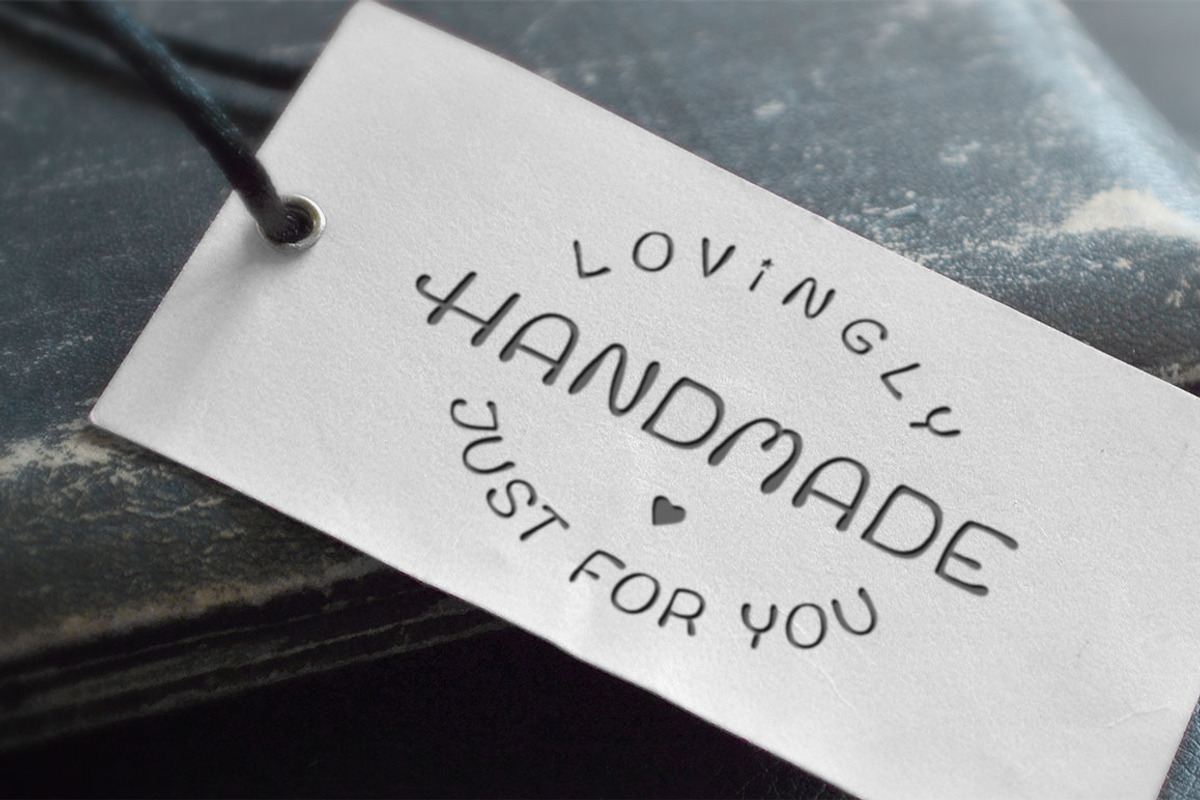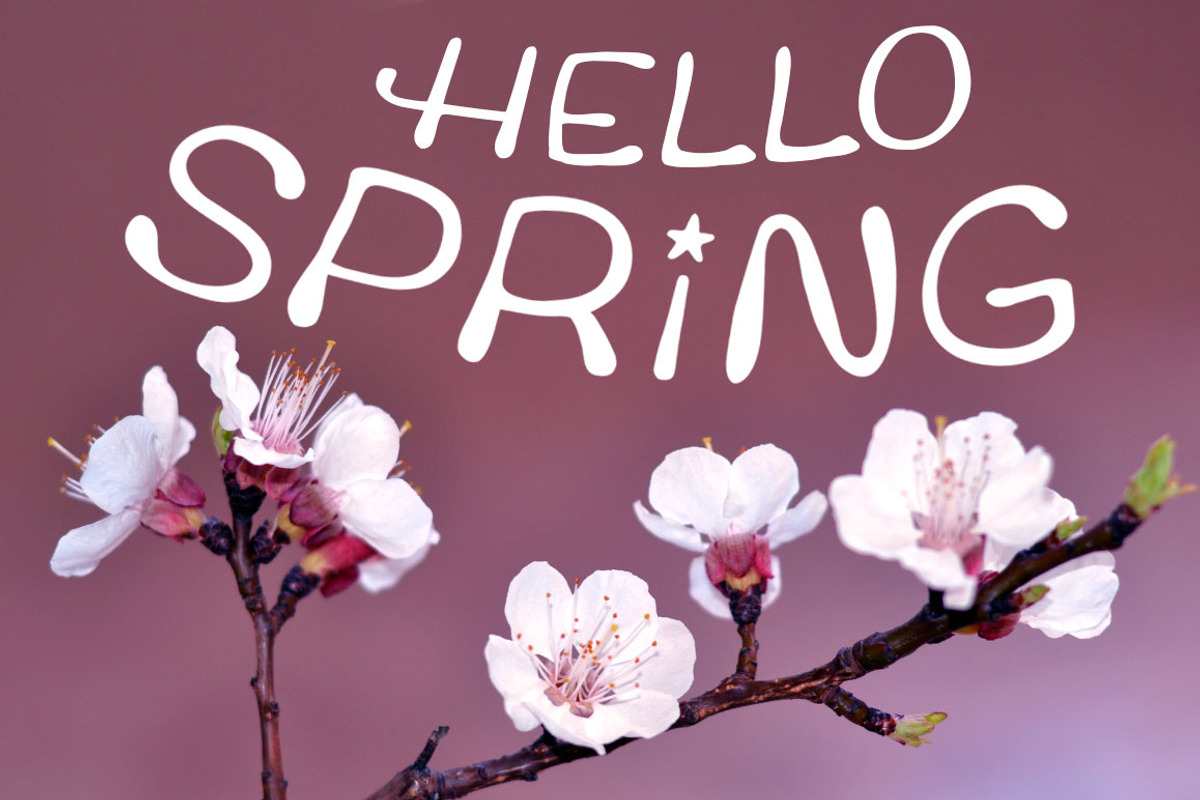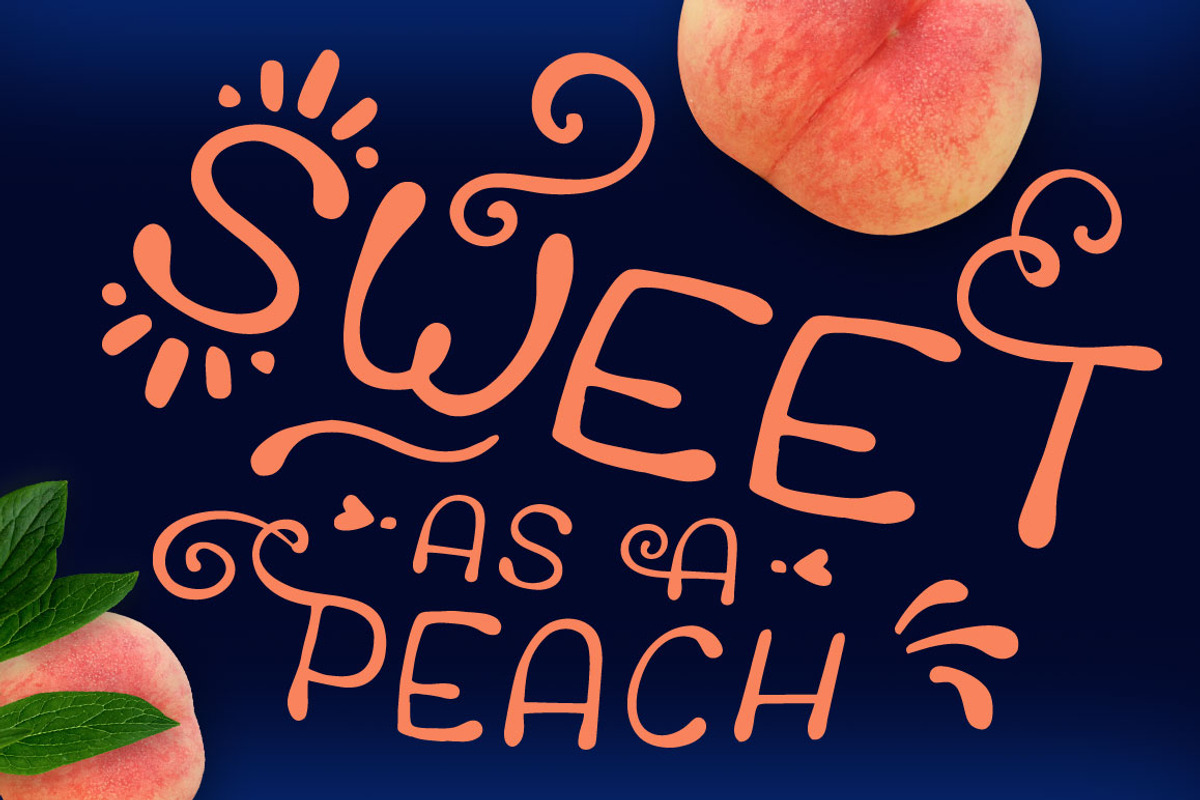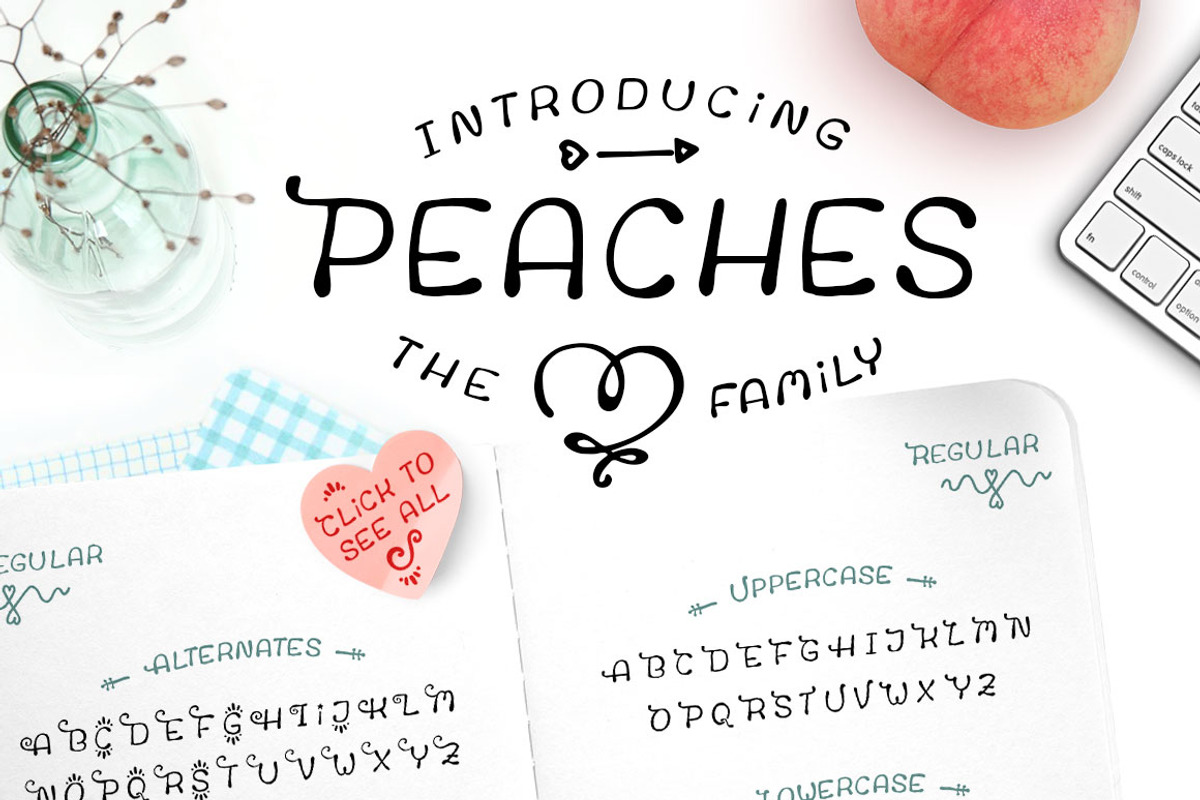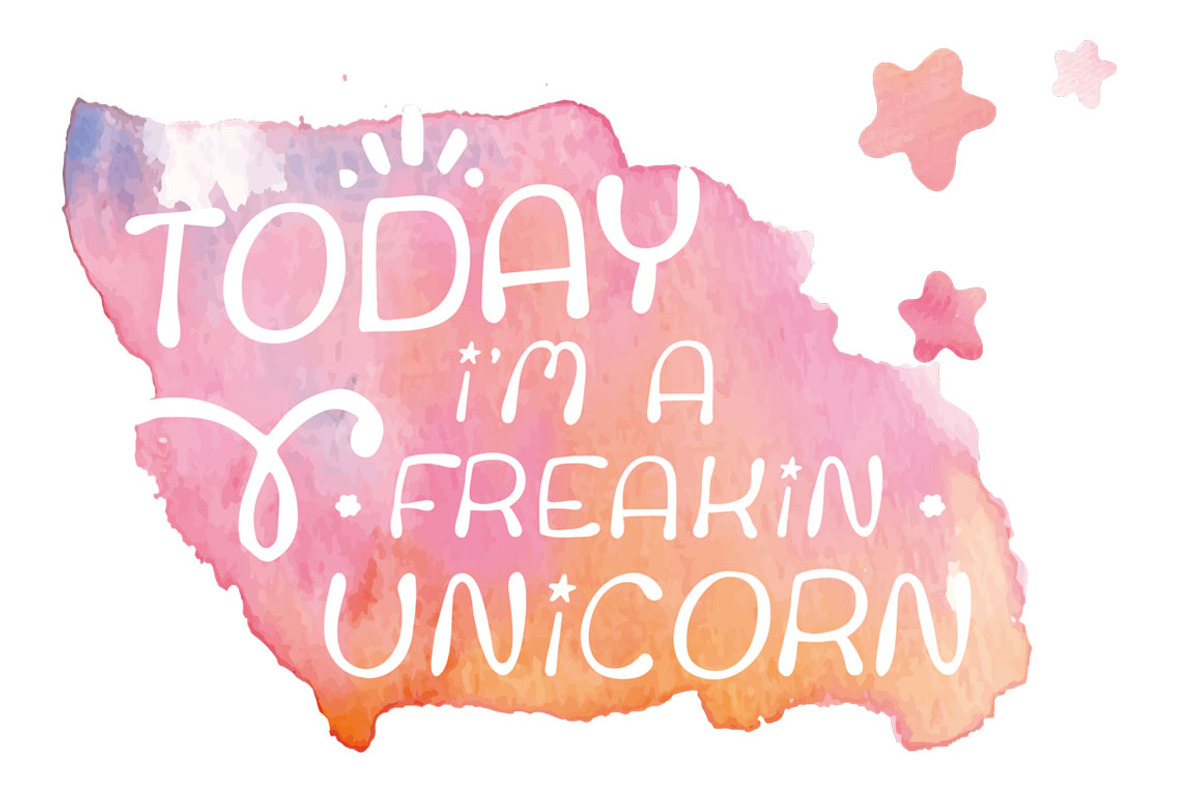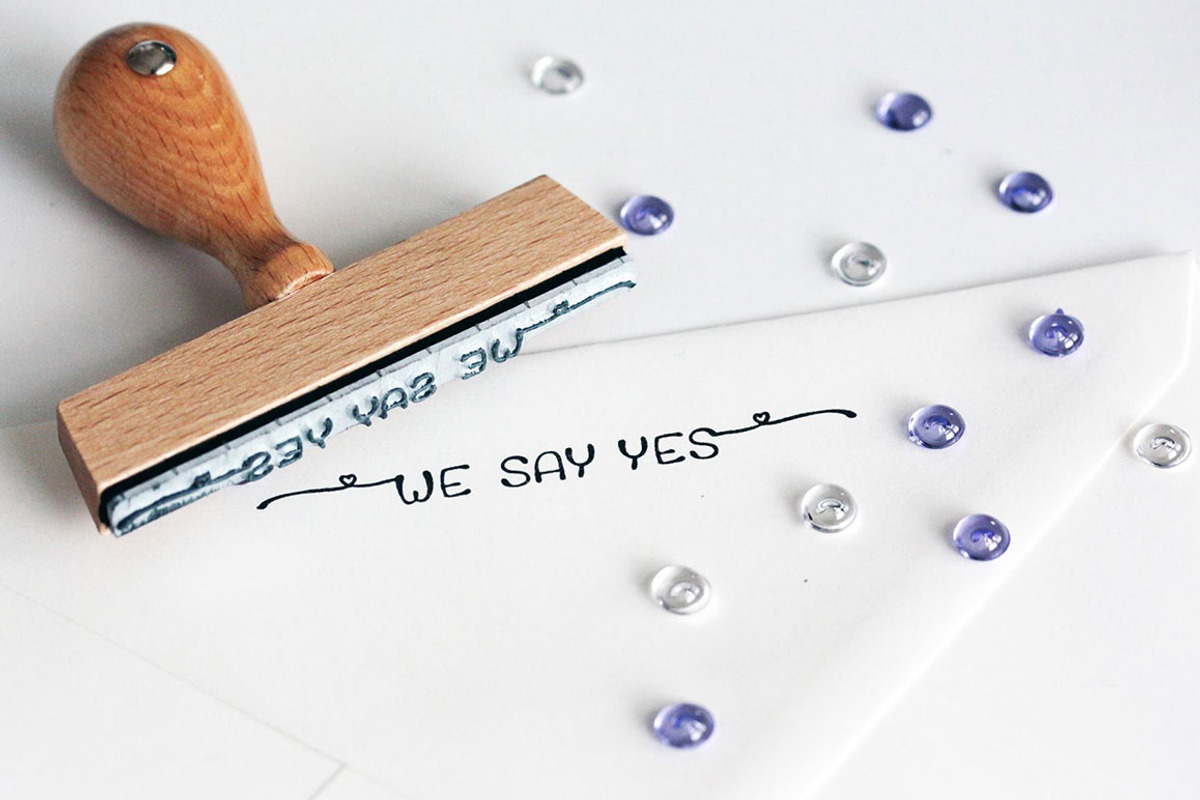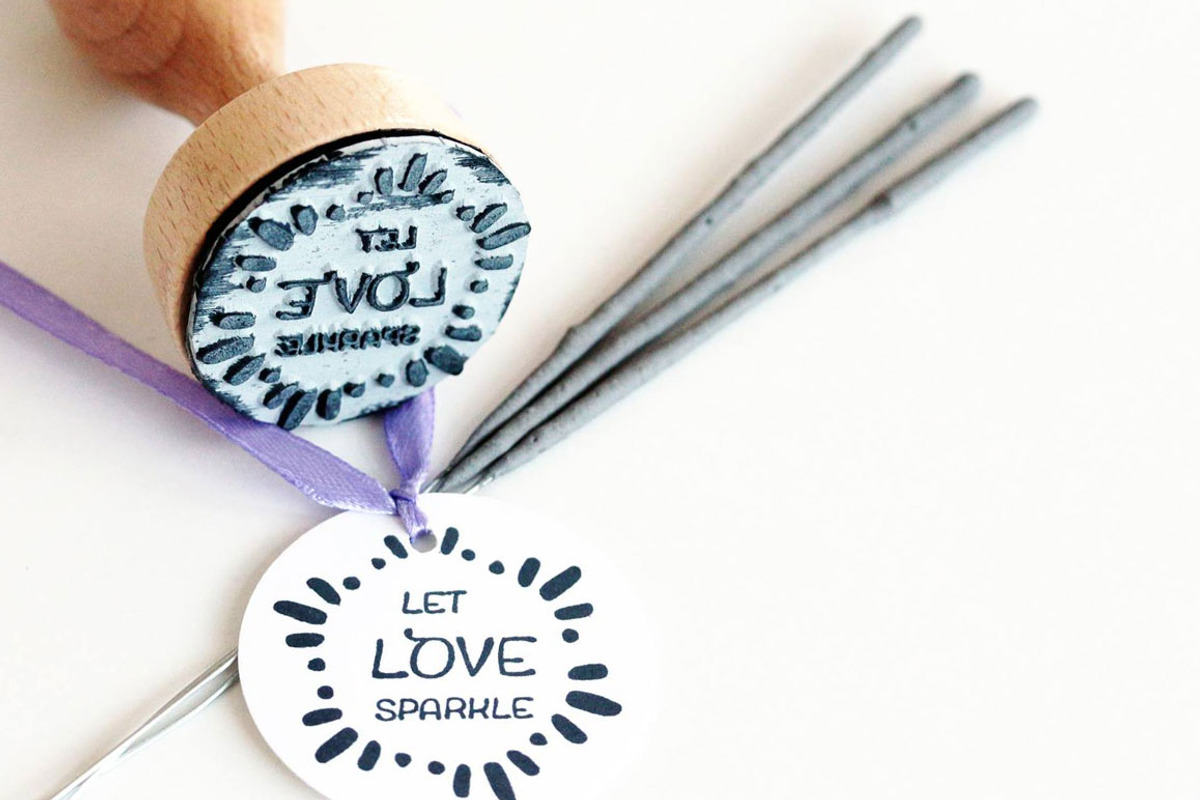
Peaches Wedding Font
Peaches Wedding Font by Doris Nawratil is a font selected for branding, posters, packaging, typography.
- Let me introduce you to Peaches - A cute new hand-illustrated fontfamily - made with a pen and lots of love, alternates and swirls!
- I really enjoyed crafting this new rounded Uppercase Font that was inspired by the round shape of peach blossoms.
- Here's what you get with the PEACHES typeface: Peaches is an All Caps Font, but Uppercase Characters differ from Lowercase Characters (excep
Why Peaches Wedding Font is worth a look
Peaches Wedding Font by Doris Nawratil fits naturally into Branding, posters, packaging, typography.